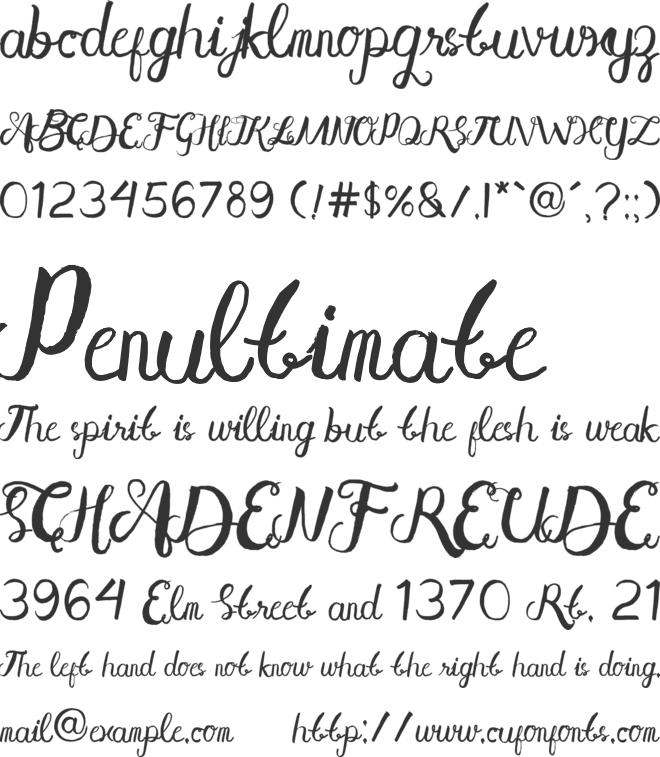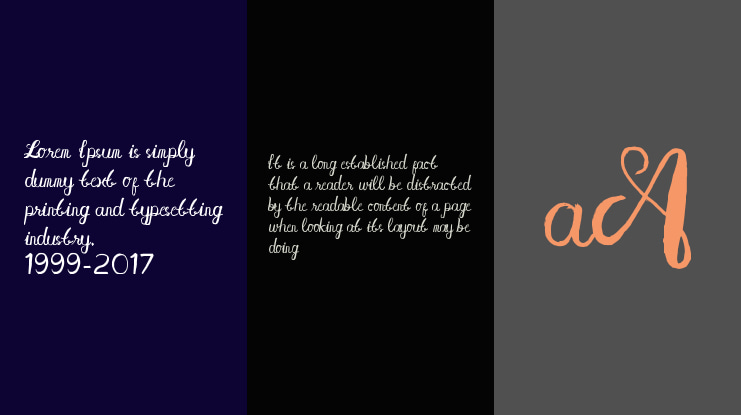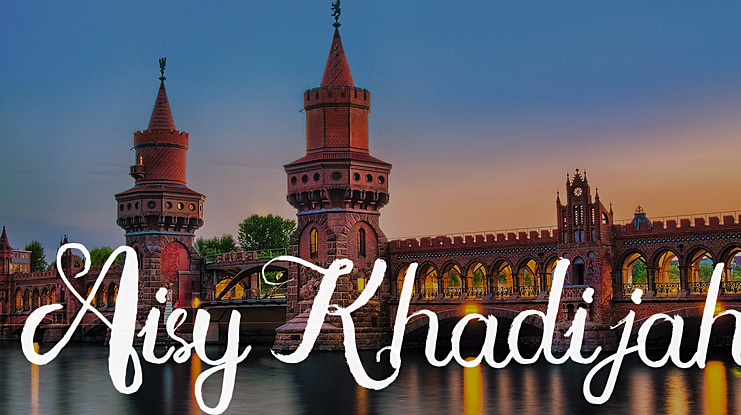
Aisy Khadijah Font Family
Aisy Khadijah is modern brush font. It maintains its classy calligraphic influences while feeling contemporary and fresh. This versatility will appeal to a wide range of crafty ideas, from letterheads and titles to stationery.